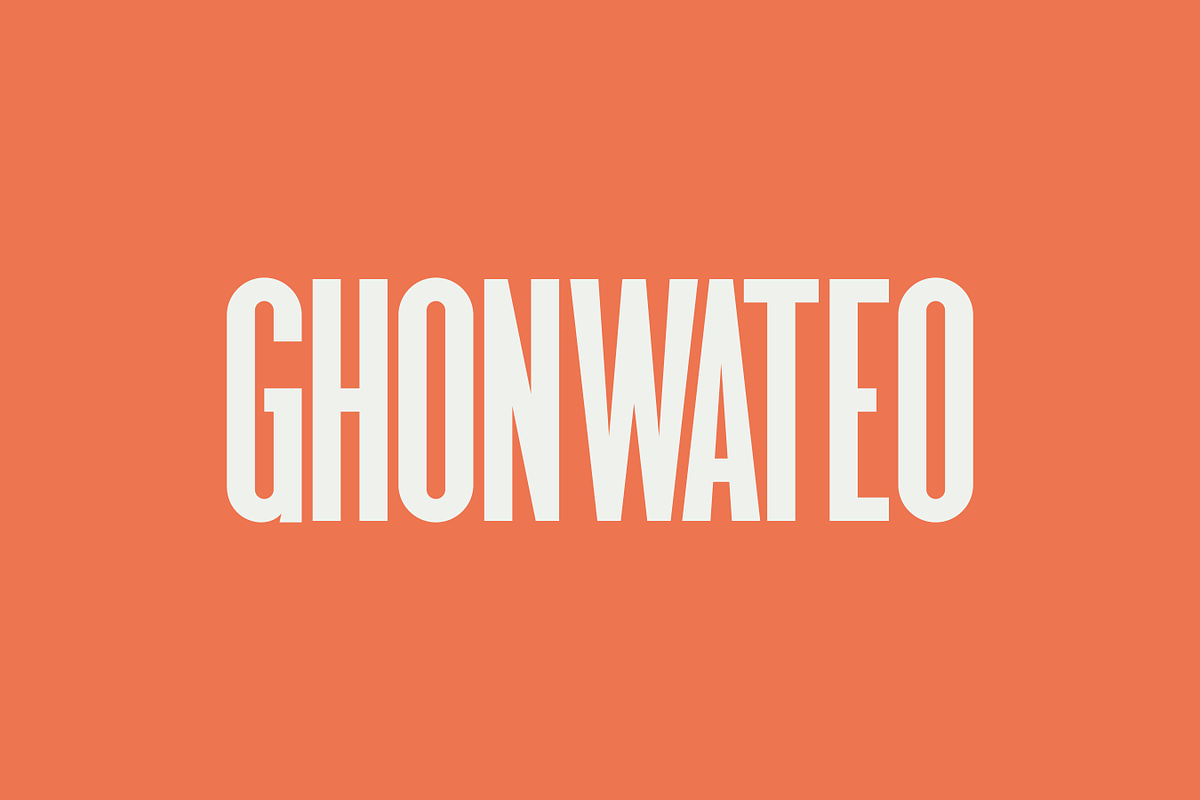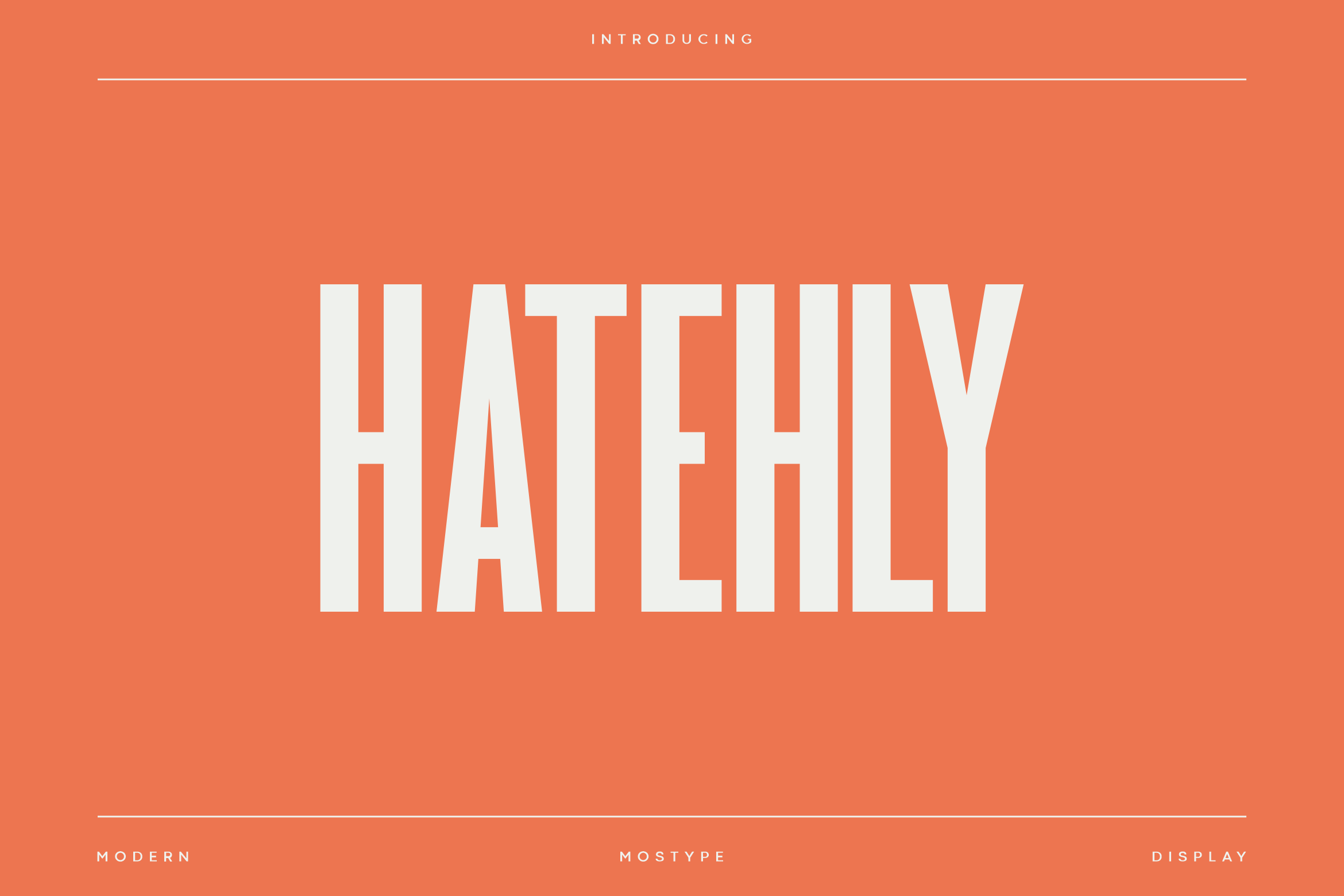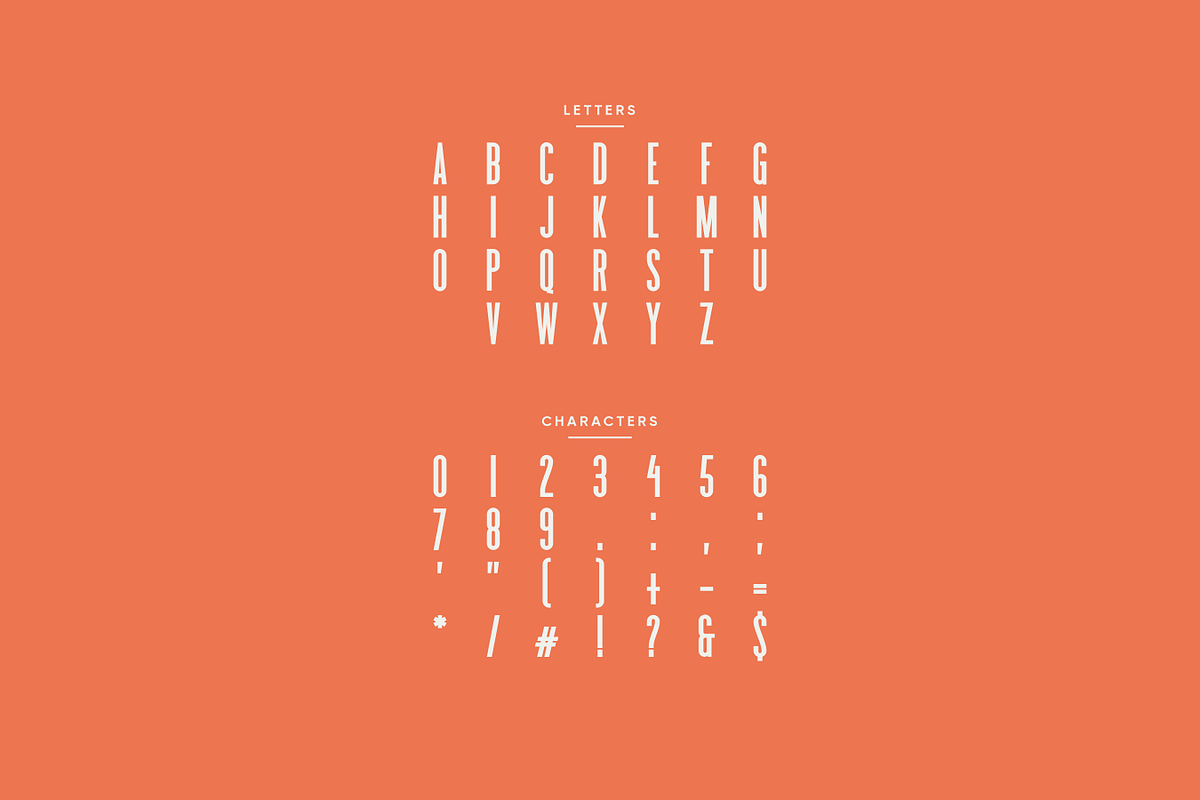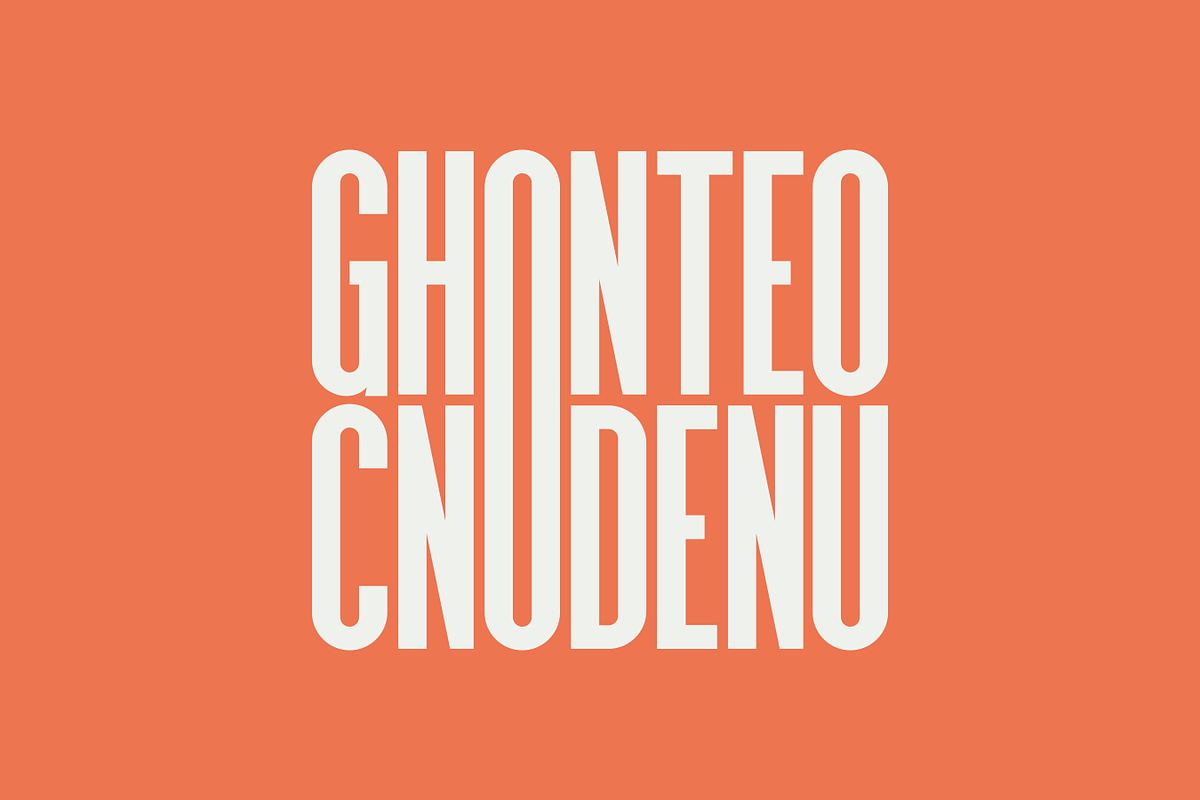
Hatehly - Modern Condensed Typeface
Hatehly is a striking gothic condensed typeface that gives a touch of grunge style to your designs. With its condensed form, this font exudes a powerful and bold presence, capturing attention and effortlessly conveying a sense of strength and impact.